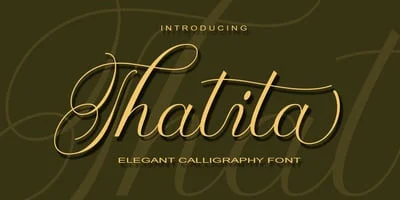
Thalita Font
Thalita Font is perfect for wedding invitations, greeting cards, branding projects, logo design, social media posts, book covers, magazine layouts, packaging design, website headers, and luxury product advertisements.
What makes Thalita Font so exciting is its elegant handwritten style that combines modern calligraphy with classic sophistication. This versatile typeface features flowing curves and refined letterforms that instantly elevate any design project, making it perfect for brands seeking a premium, personal touch.
The Thalita Font family includes regular, bold, italic, and script variations, along with extensive character sets featuring ligatures, alternates, and multilingual support. Each style maintains the font's signature elegance while offering designers flexibility for various applications.
Whether you're creating romantic wedding stationery or sophisticated brand identity, Thalita Font provides the perfect solution for designers who want to add a touch of handcrafted elegance to their work. The font's carefully crafted letterforms ensure excellent readability while maintaining artistic flair.
This premium typeface works exceptionally well in both digital and print media, making it an essential addition to any designer's toolkit. The Thalita Font delivers consistent quality across all platforms and sizes, from large display text to smaller body copy.